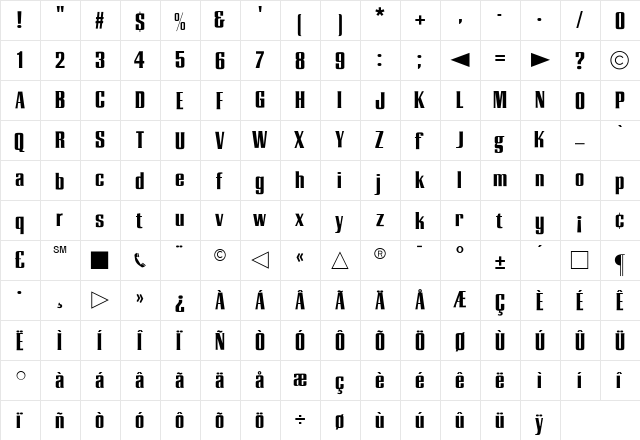
CgEuropaBd Medium
Design Context for CgEuropaBd Typeface
CgEuropaBd is a composed and adaptable typeface that performs quietly and consistently across a wide range of design contexts.